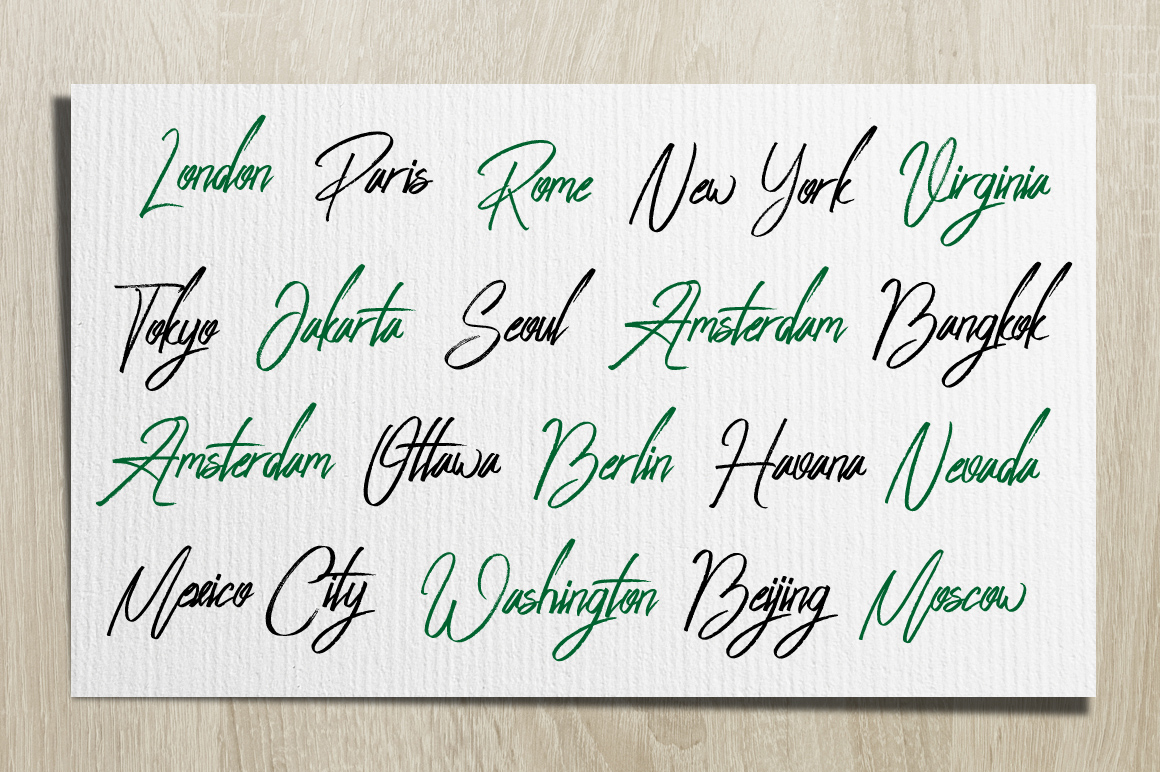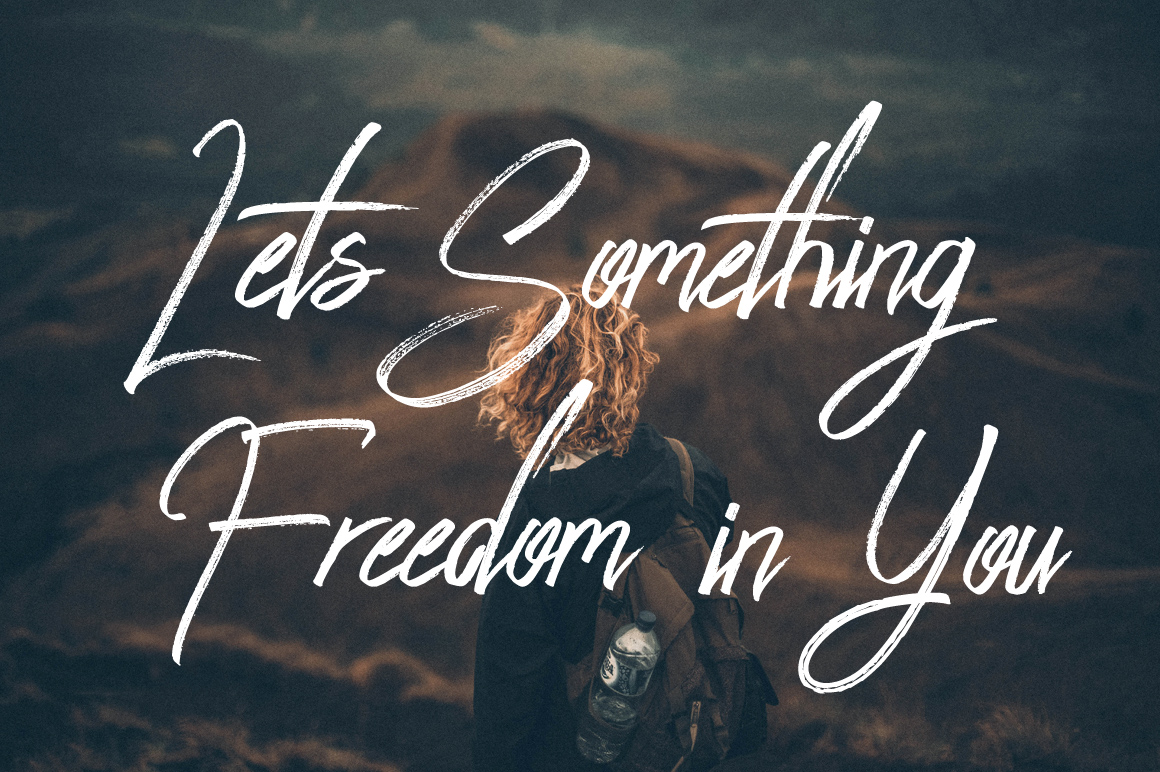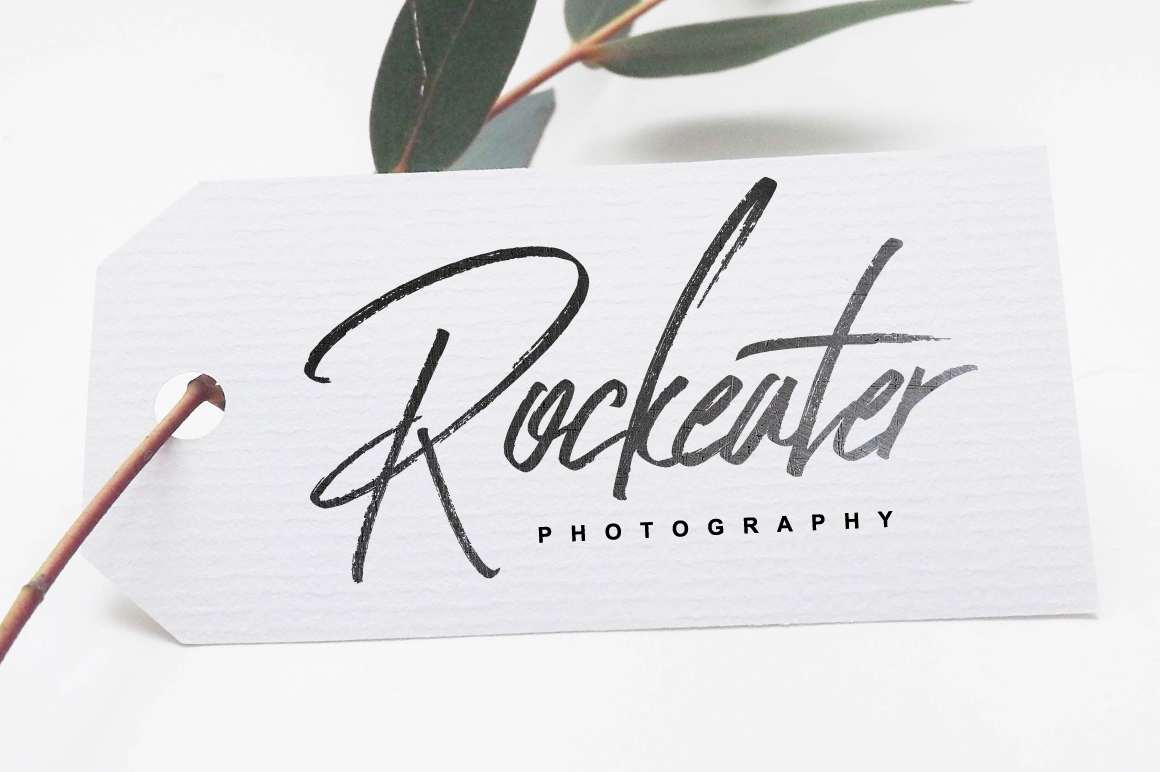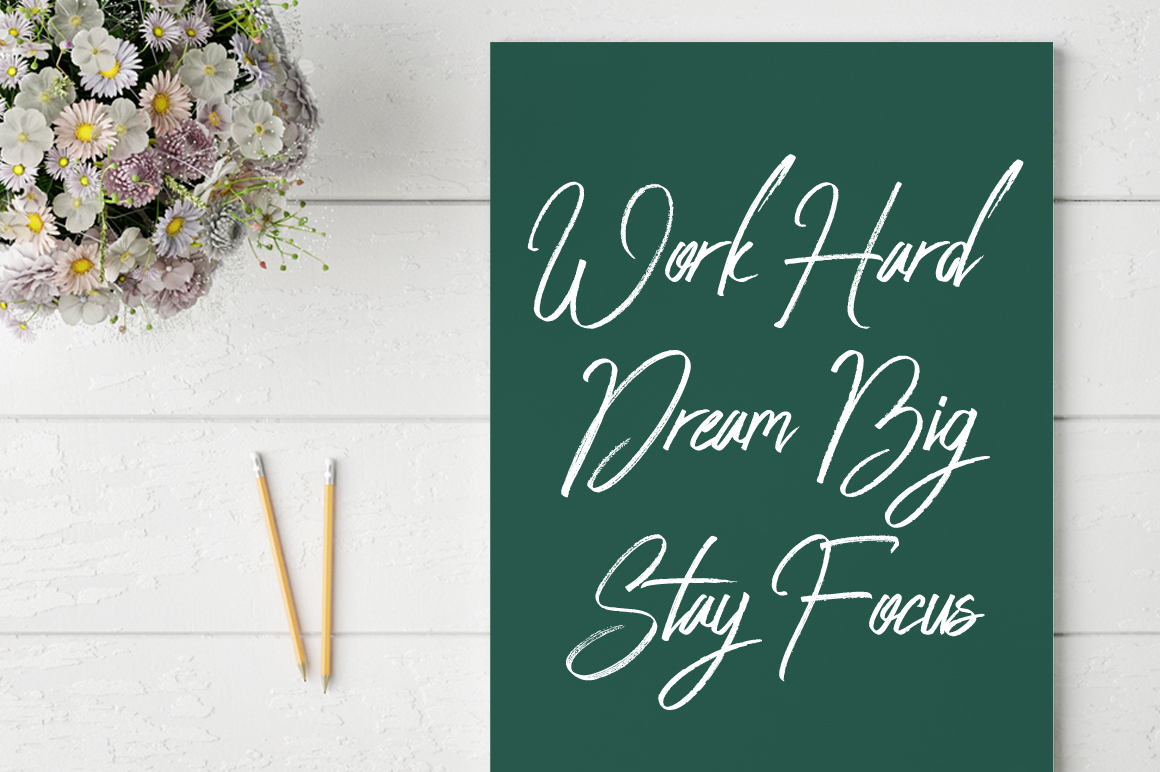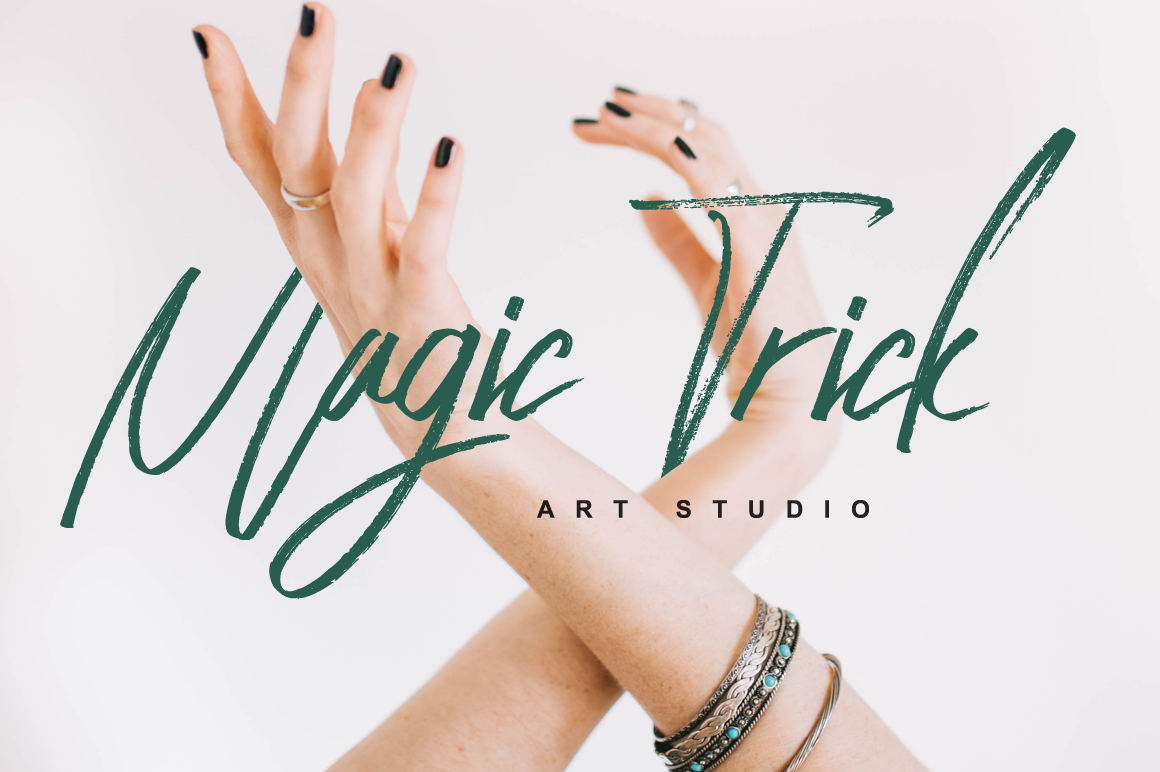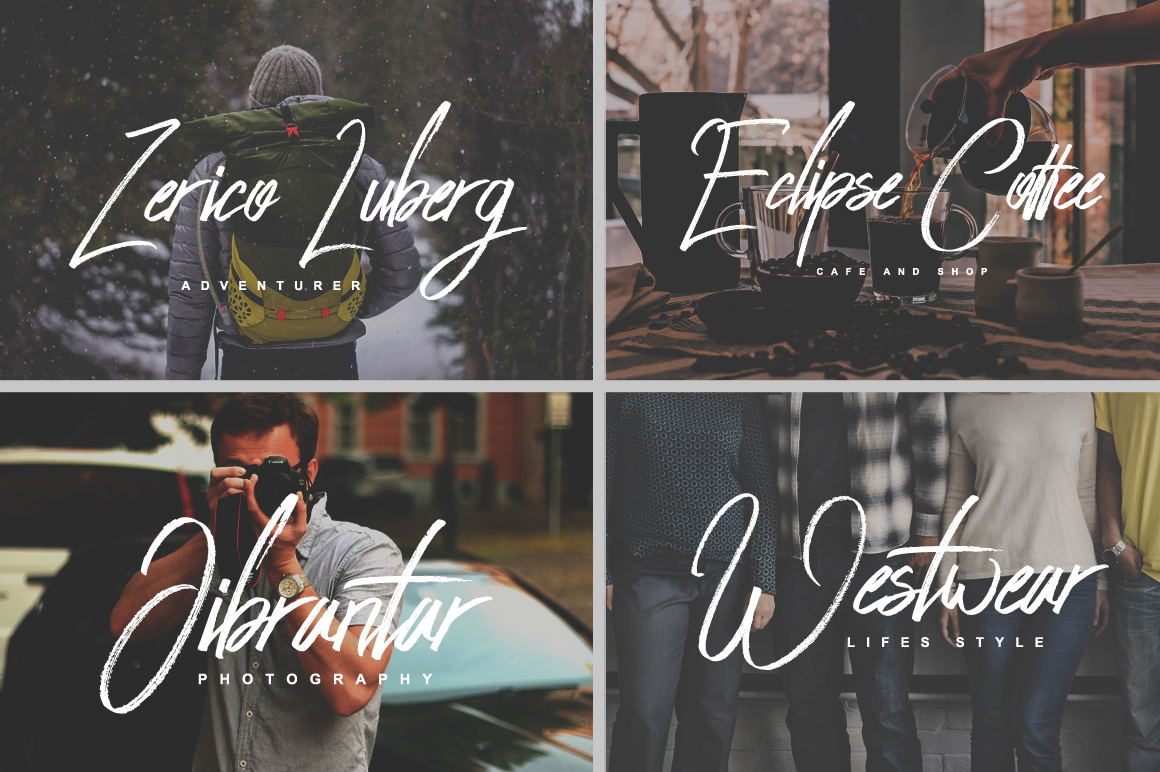
Introduction to Peace Maker Font
Peace Maker is a stunning dry brush stroke font, suitable for headlines and signature styled designs.
This font is a gorgeous way to give your projects a high impact yet casual appeal .